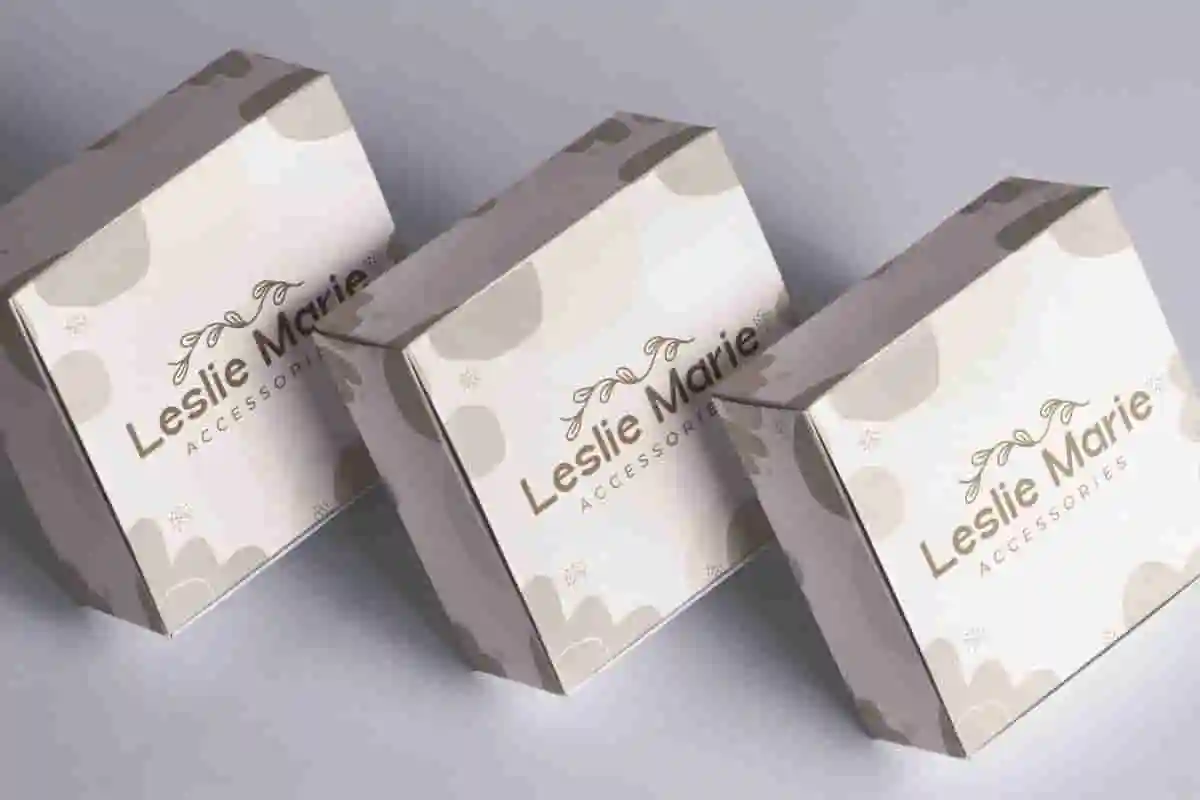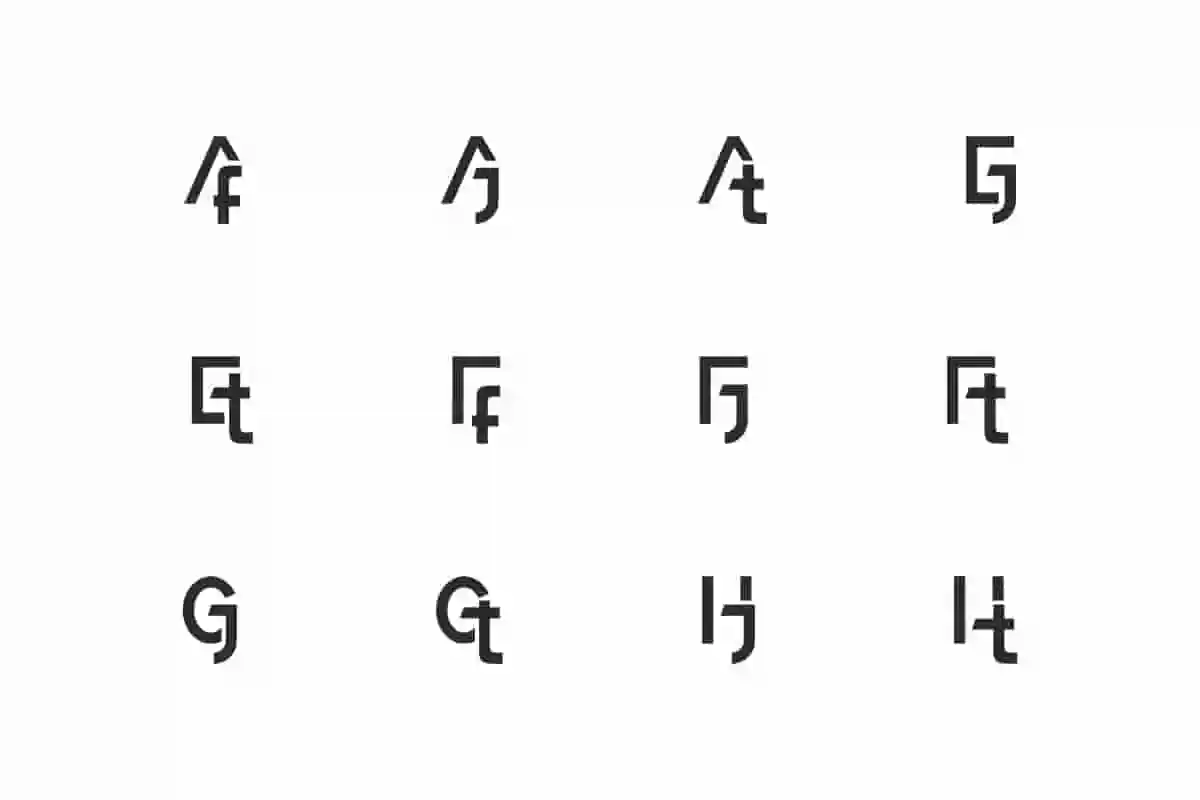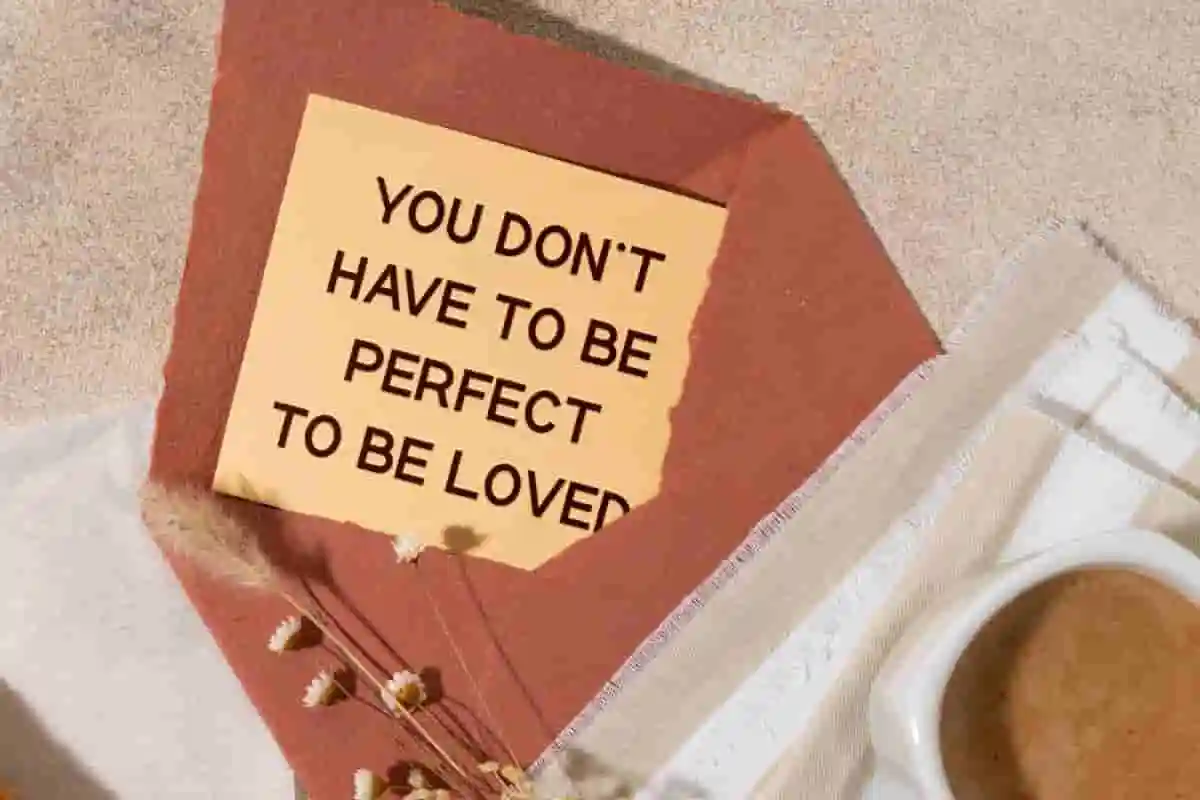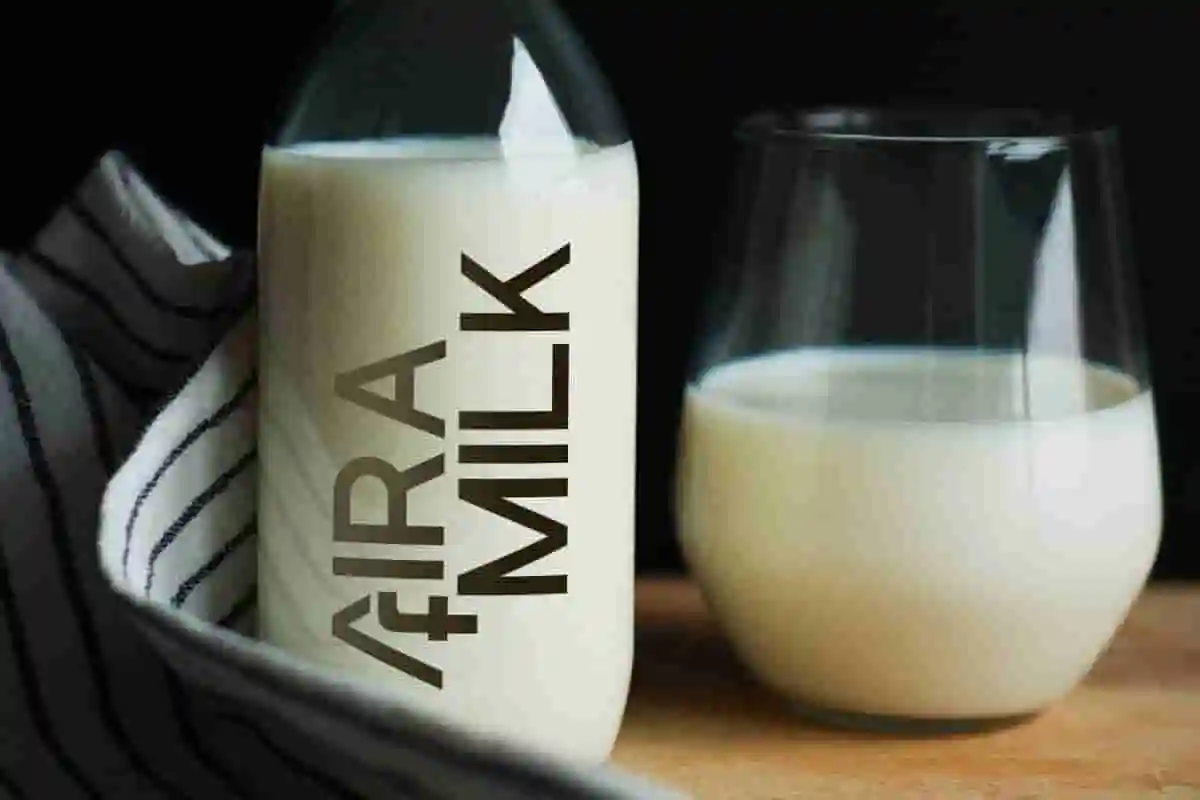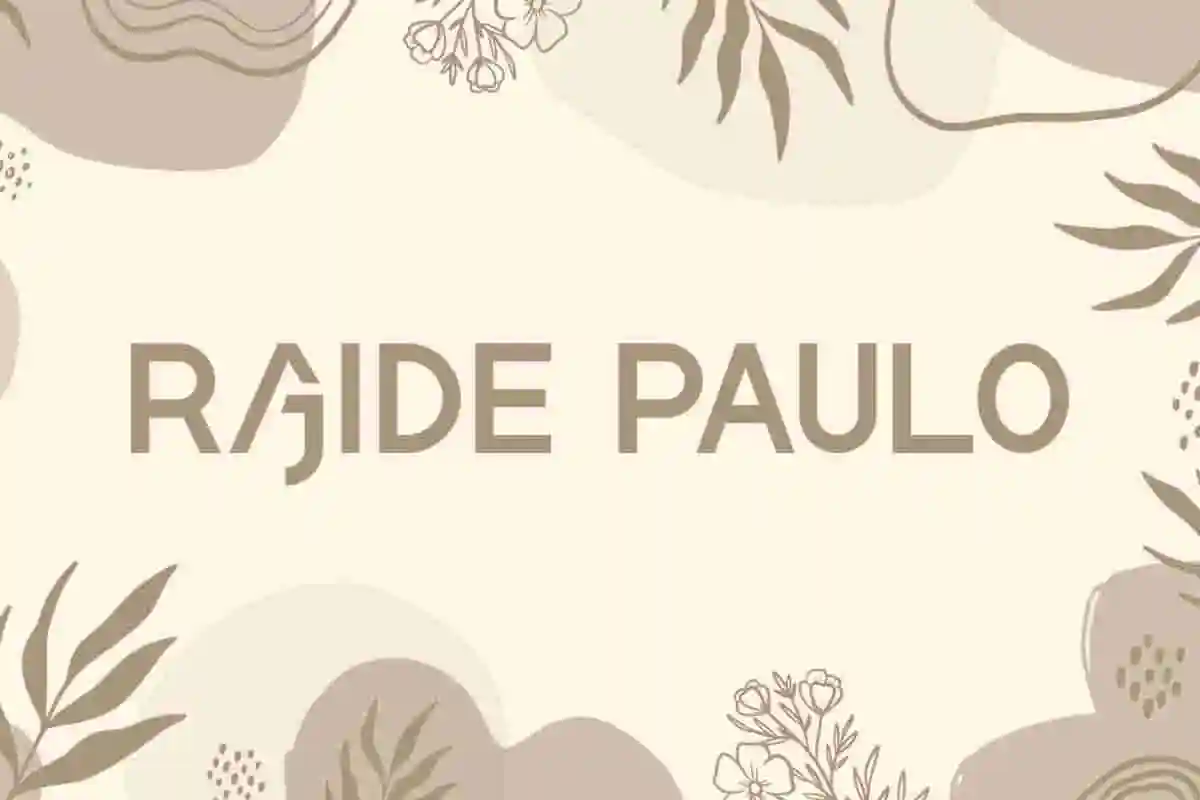
Rajide Paulo Font is a fresh iconic typeface with an authoritative presence that begs to be seen. Ideal choice for those looking for a casual and urban look!
Rajide Paulo Font is a bold and soft sans serif font with unique ligature pairs in a slightly techie feel. Perfect for accessories and gifts, boutique, business corporate, fashion, florist, graphic design, handicraft, home furniture, milk brand, publisher, spa salon, ang much more.
Rajide Paulo Font includes full set of Uppercase and Lowercase Basic Characters, Number, Punctuation, Symbol, and Ligature. It has a modern feel with the charm of impactful letters in a contemporary touch that is perfect for digital or print purposes. Use it for banners, blogs, covers, headers, invitation, logos, mockup, product packaging, signage, stationery, sticker, template, titles, watermarks, websites, etc.